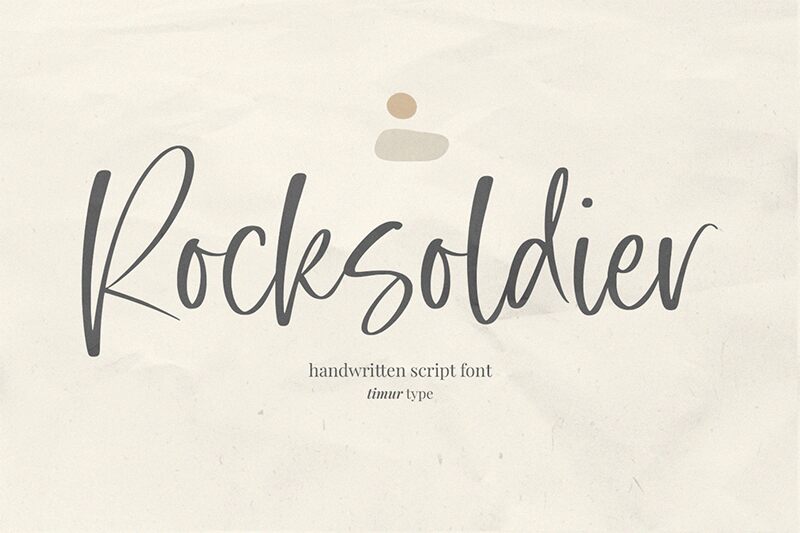
Rocksoldier
Rocksoldier, a creation by Timur Type, exudes a personal touch with its handwritten style that conveys warmth and authenticity. The strokes suggest the natural variations of hand-drawn letters, making it feel approachable and intimate. Its flowing lines and organic curves create an aesthetic that's both relaxed and dynamic.
This font's charm lies in its ability to bring a handmade quality to designs, perfect for projects that require a sense of individuality or artisanal flair. From personalized stationery to branding elements for boutique businesses, Rocksoldier offers a balance between elegance and casualness that can add character to various creative endeavors.